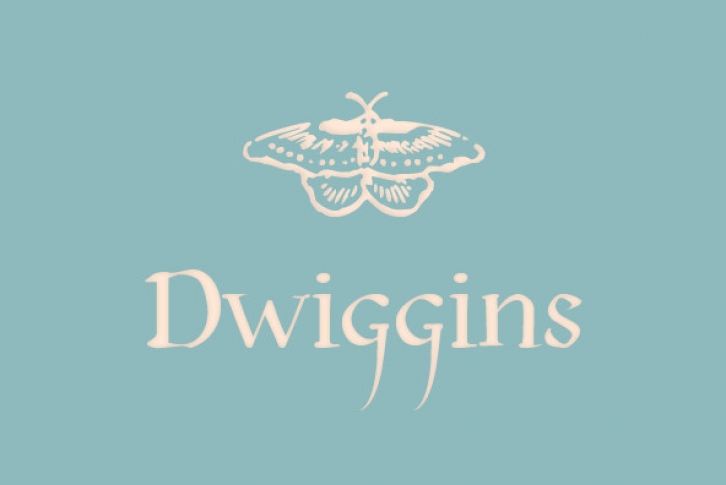
Dwiggins Uncial is named in honor of William Addison Dwiggins (1880-1956), one of the premier graphic designers of the first half of the 20th century. He worked as an illustrator and calligrapher, while pursuing other artistic endeavors, such as his highly regarded marionette theatre. Personally, Dwiggins was a modest man, but his modernist book and type designs (many of which, such as Caledonia and Electra, are still in wide use) continue to influence and inspire contemporary designers.
This particular face, Dwiggins Uncial, is based on calligraphy Dwiggins created for a self-penned short story, which appeared as an insert in the book-arts publication The Dolphin (1935). This self-described "experimental uncial" lettering features rather unusual treatments of letterforms which combine manuscript calligraphy with modern idiosyncrasies.
Dwiggins Extras
Although Dwiggins illustrated a number of books using conventional media, he is best known for his method of illustration that uses a series of hand-cut celluloid stencils or what he called "machine ornaments." With these stencils, Dwiggins (and other designers who use his ornaments) build-up repeated motifs and patterns into abstract designs and/or representational images which have a look that is uniquely Dwiggins’ own. Unlike other illustrators, Dwiggins’ style has not been commonly imitated and therefore diluted—his style is as distinctive today as it was 70 years ago. This set of decorative extras features 62 stencil and woodblock motifs adapted from abstract and representational Dwiggins designs.
Designed by Richard Kegler.